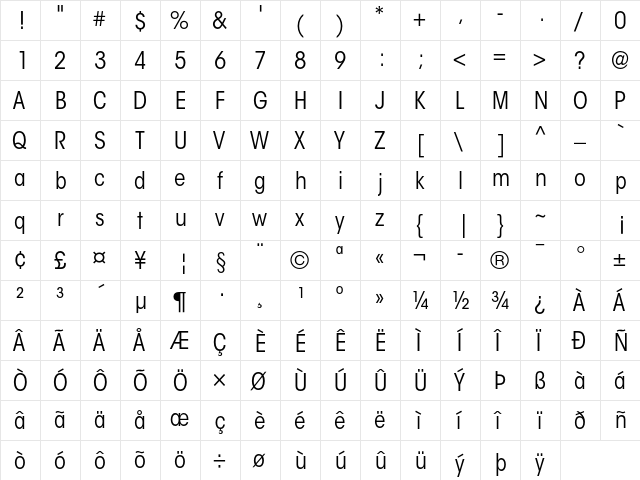
ITC Avant Garde Gothic Std Book Condensed Font Preview
| Designer | Herb Lubalin, Tom Carnase, Ed Benguiat, Adobe Type Staff |
Design Context for ITC Avant Garde Gothic Std Typeface
ITC Avant Garde Gothic Std takes a clean, functional approach — its unadorned letterforms prioritise legibility and work reliably across screen and print environments. The condensed width makes it efficient for tight spaces without sacrificing legibility.
Font Pairing: Works well alongside a characterful serif or display font that can carry the expressive load while ITC Avant Garde Gothic Std handles the functional copy.
Pro Tip: Try ITC Avant Garde Gothic Std in all-caps with moderate tracking for navigation and label copy — it performs well in systematic UI contexts.